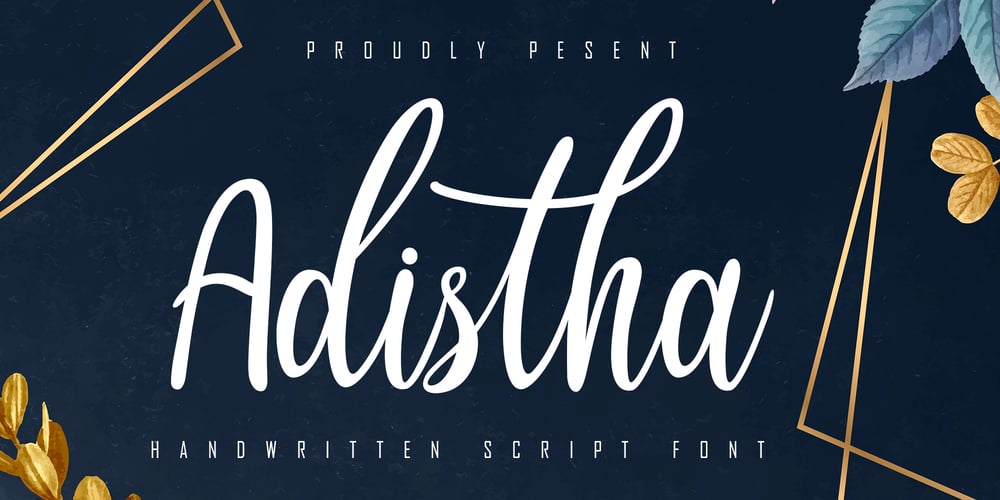
Adistha Font Family was designed by Irfan Mahmudin and published by Skiiller Studio. Adistha contains 1 styles and family package options. Adistha is an elegant and beautiful handwritten script font, suitable for the promotion of your product and helps design your writing to be more attractive and also this font is neatly arranged and modern